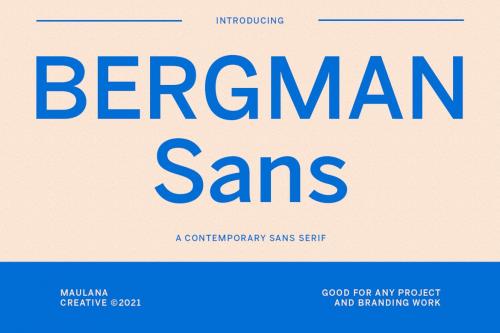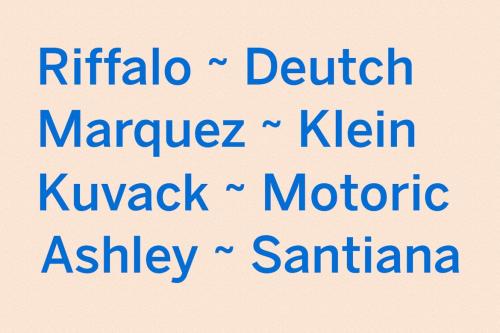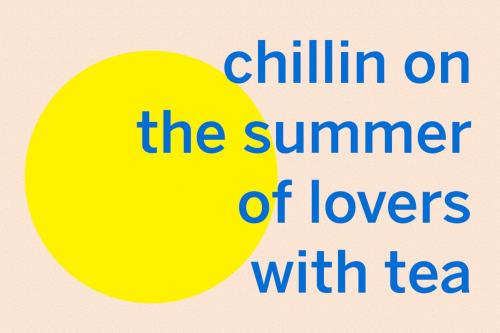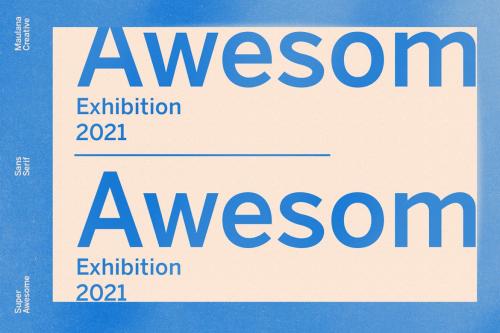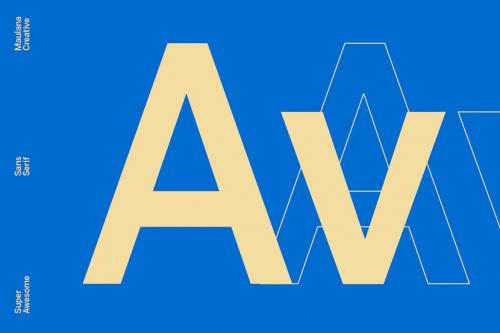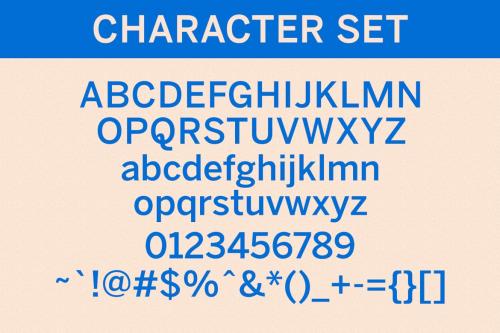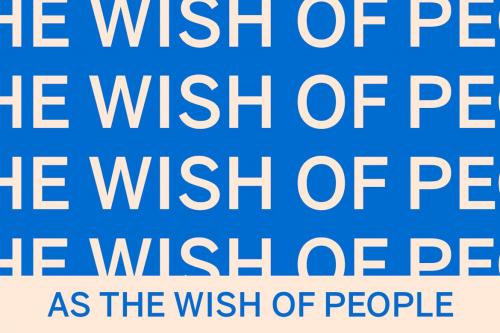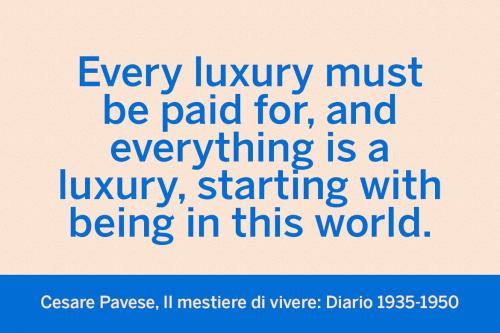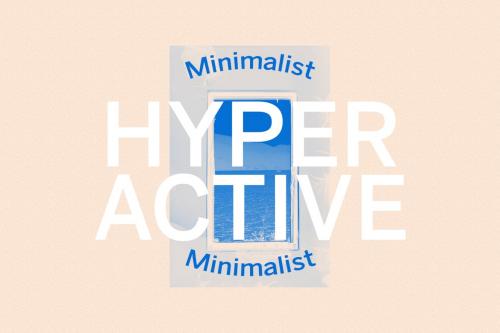
伯格曼 sans 字体
Bergman Sans Font
Bergman Sans is a Classic Contemporary Sans serif. With bold weight stroke and fun character with a bit of ligatures. To give you an extra creative work. Bergman Sans font support multilingual more than 100+ language. This font is good for logo design, Social media, Movie Titles, Books Titles, a short text even a long text letter and good for your secondary text font with script. Make a stunning work with Bergman Sans font.